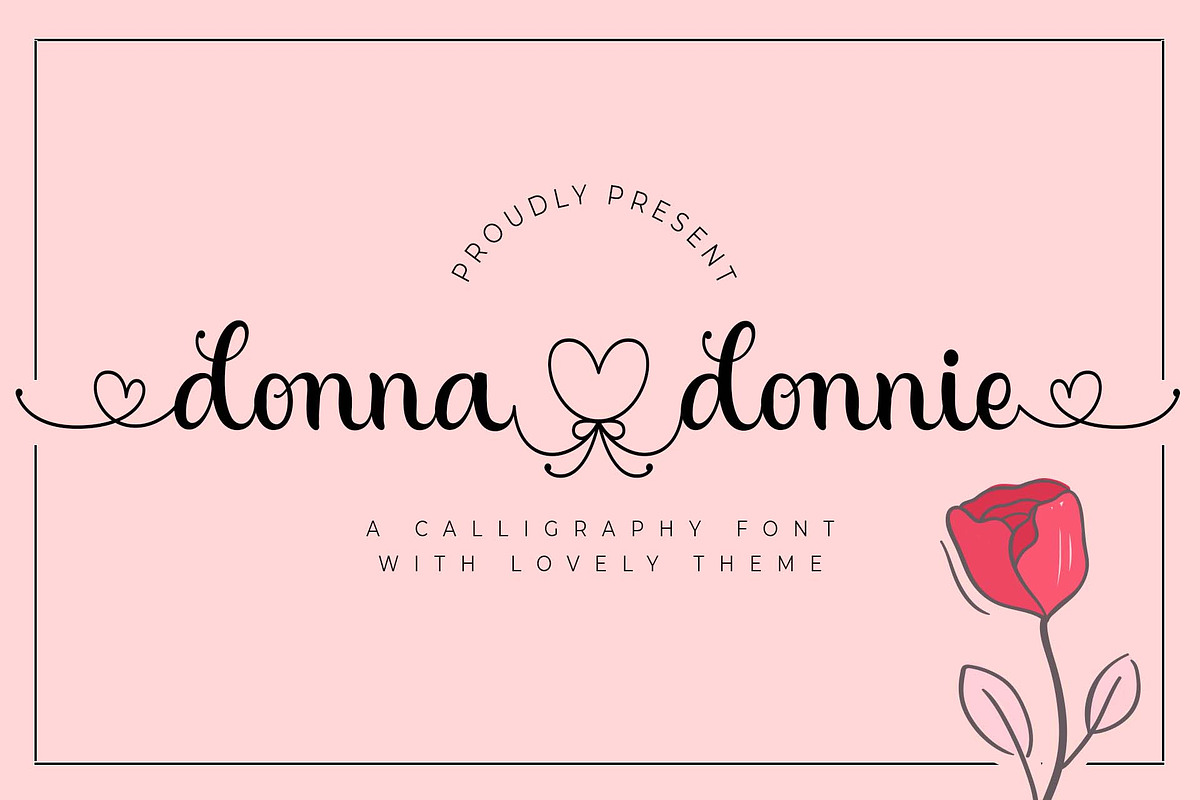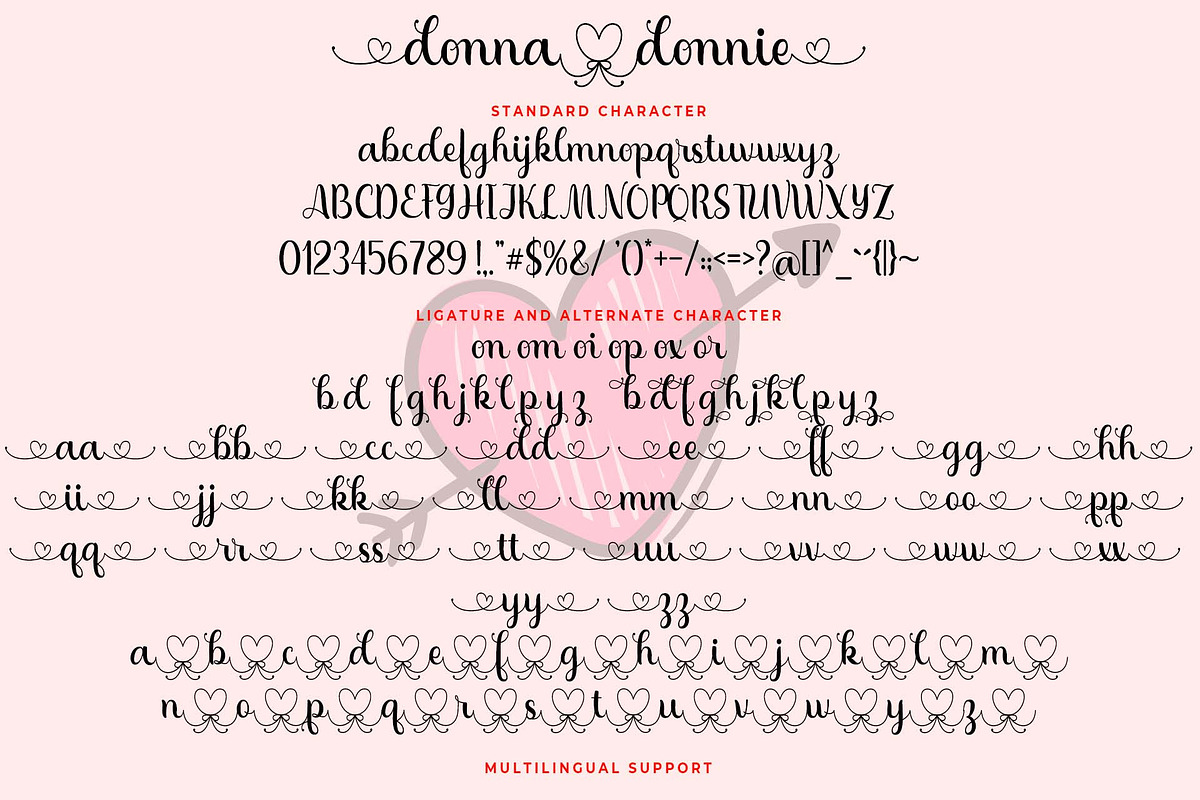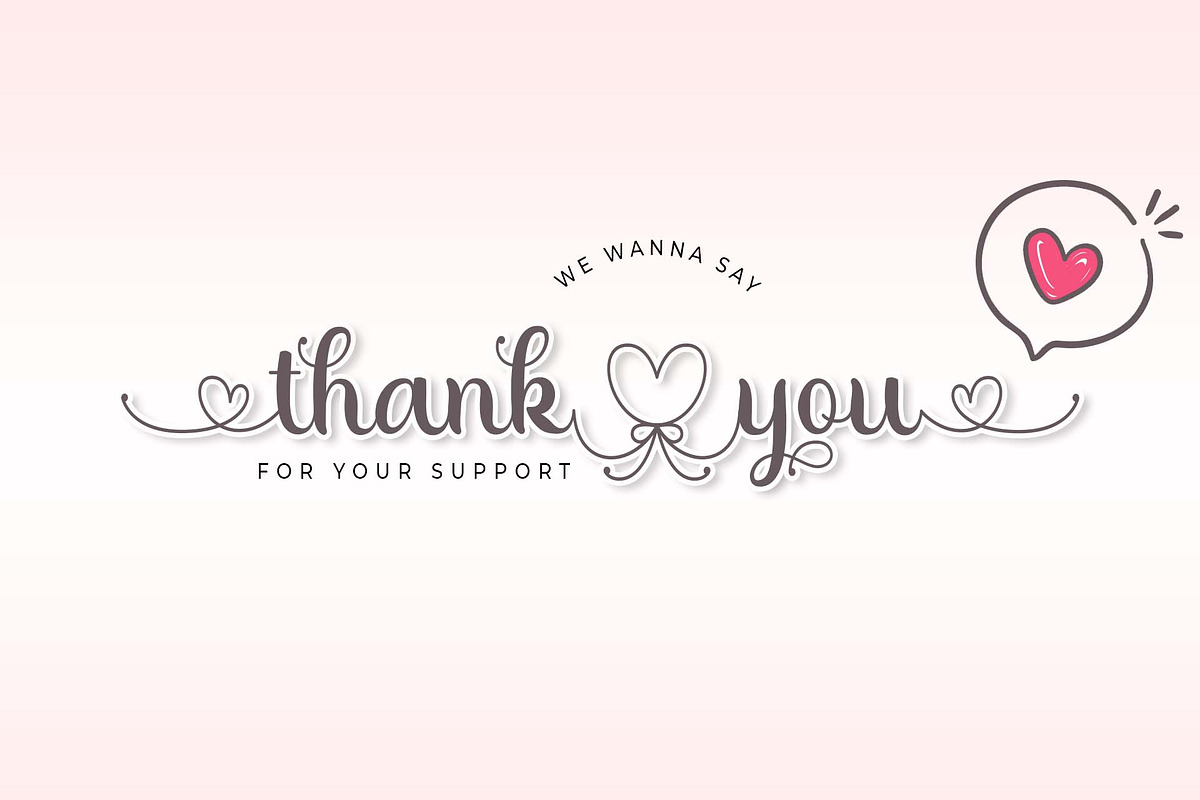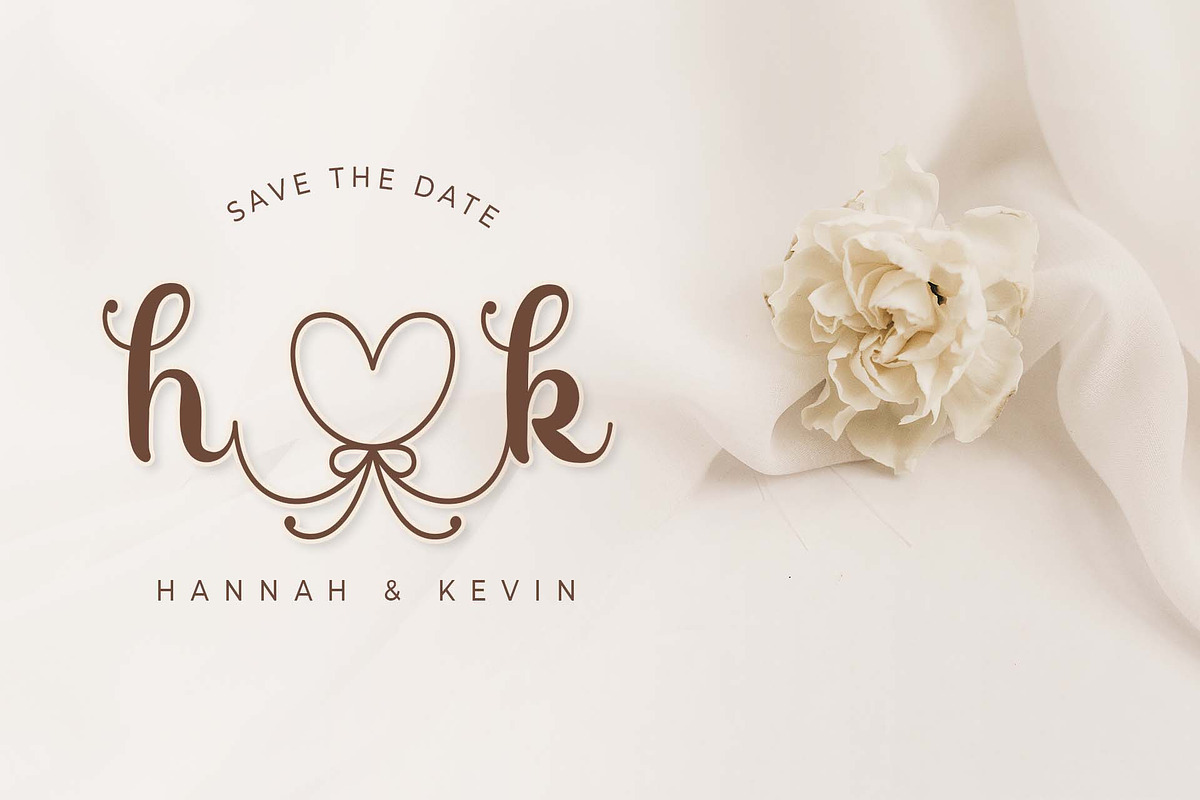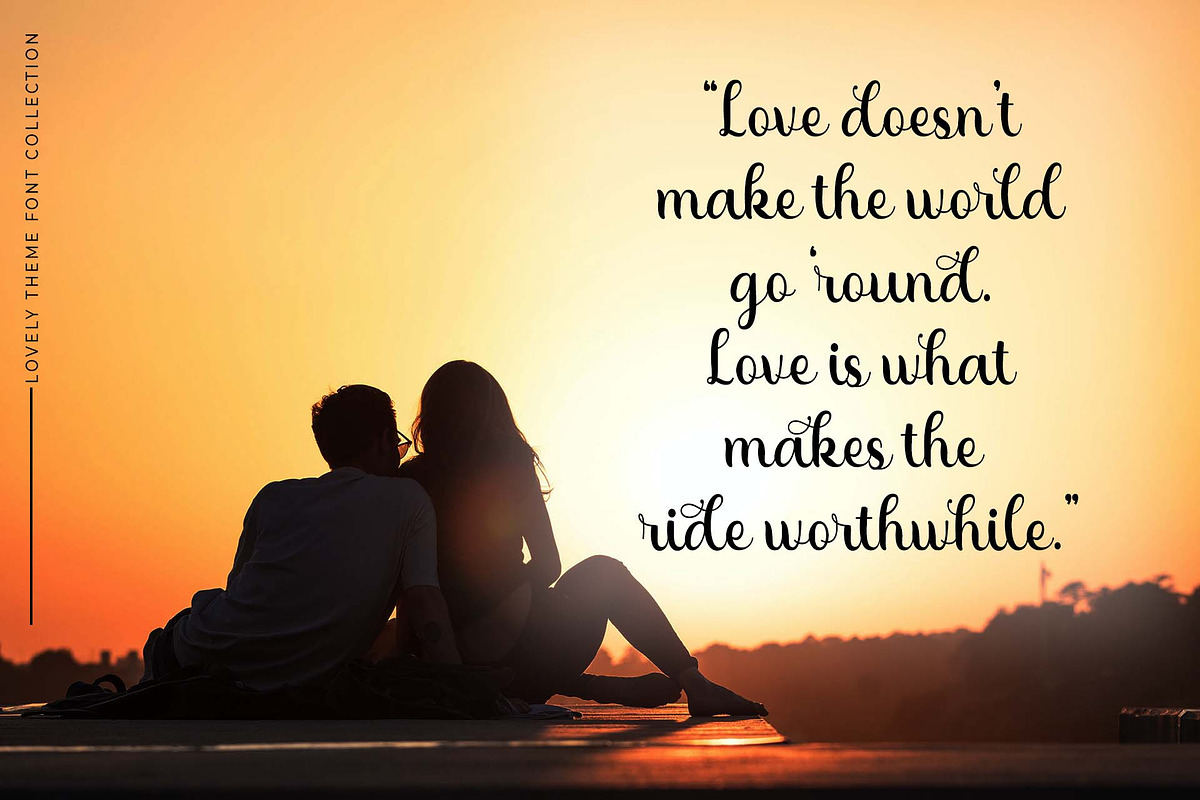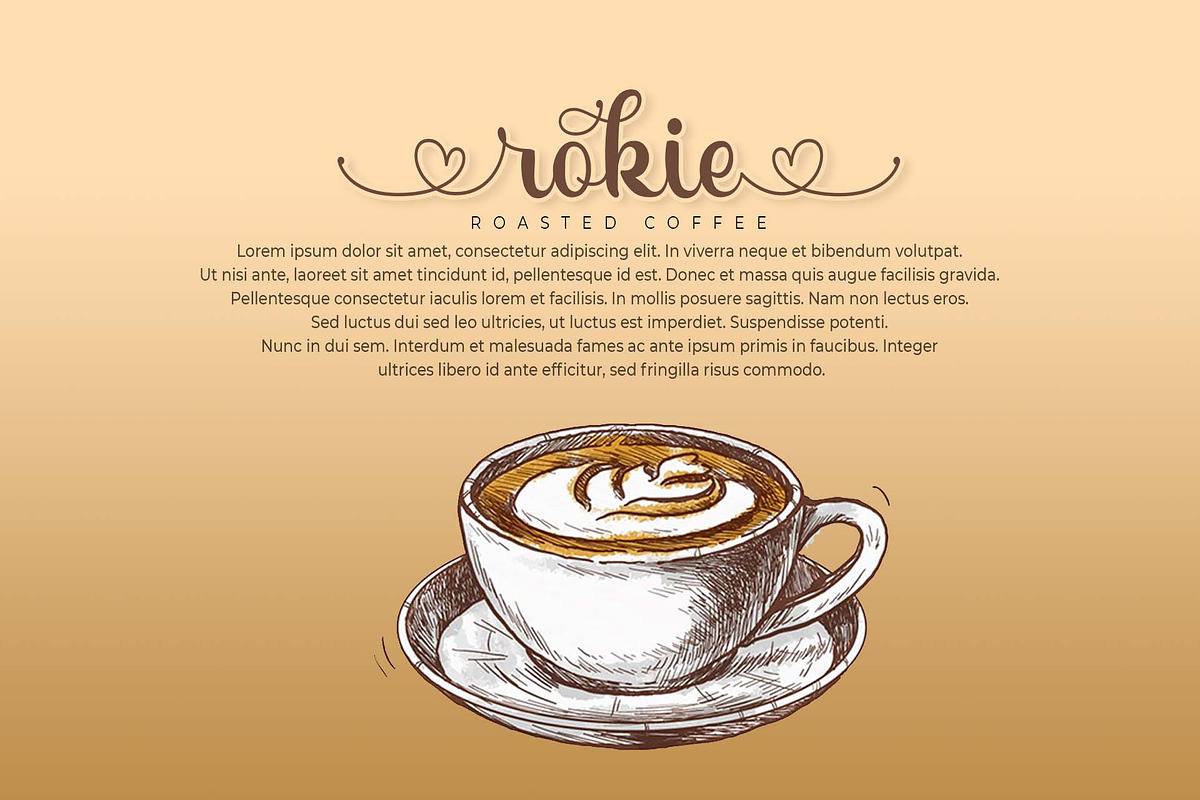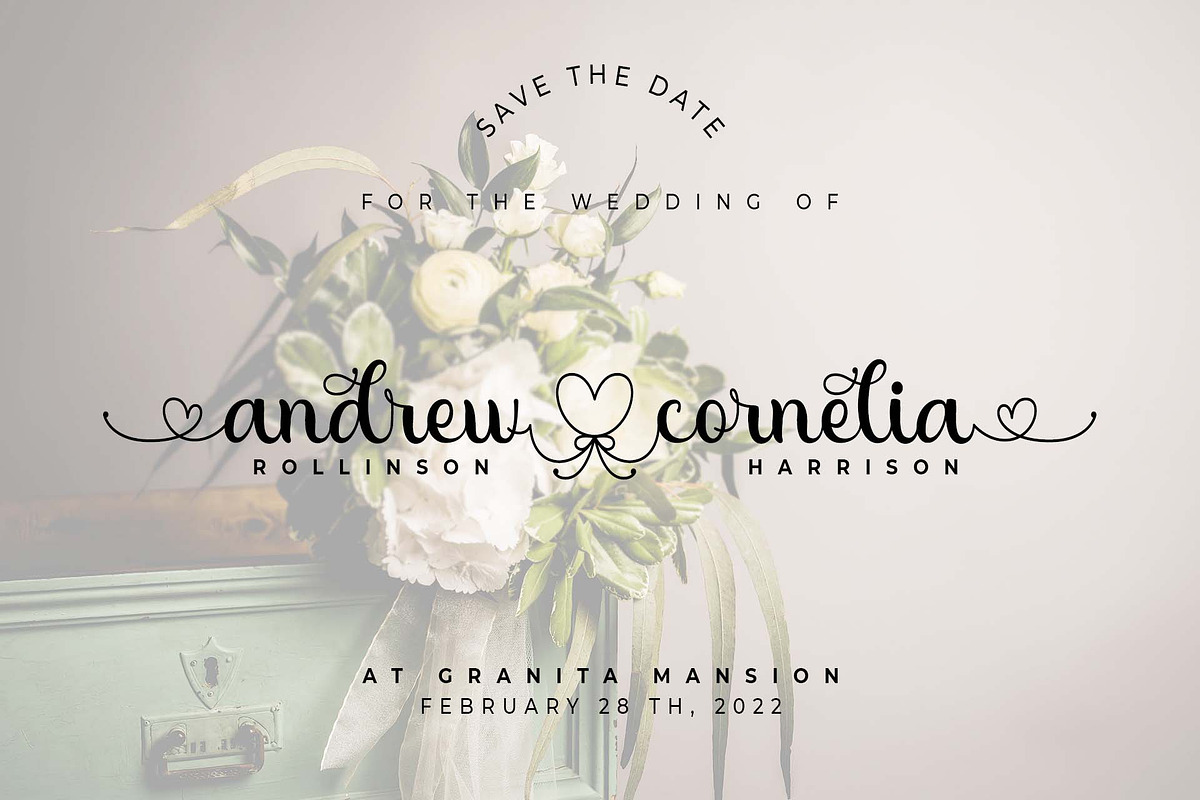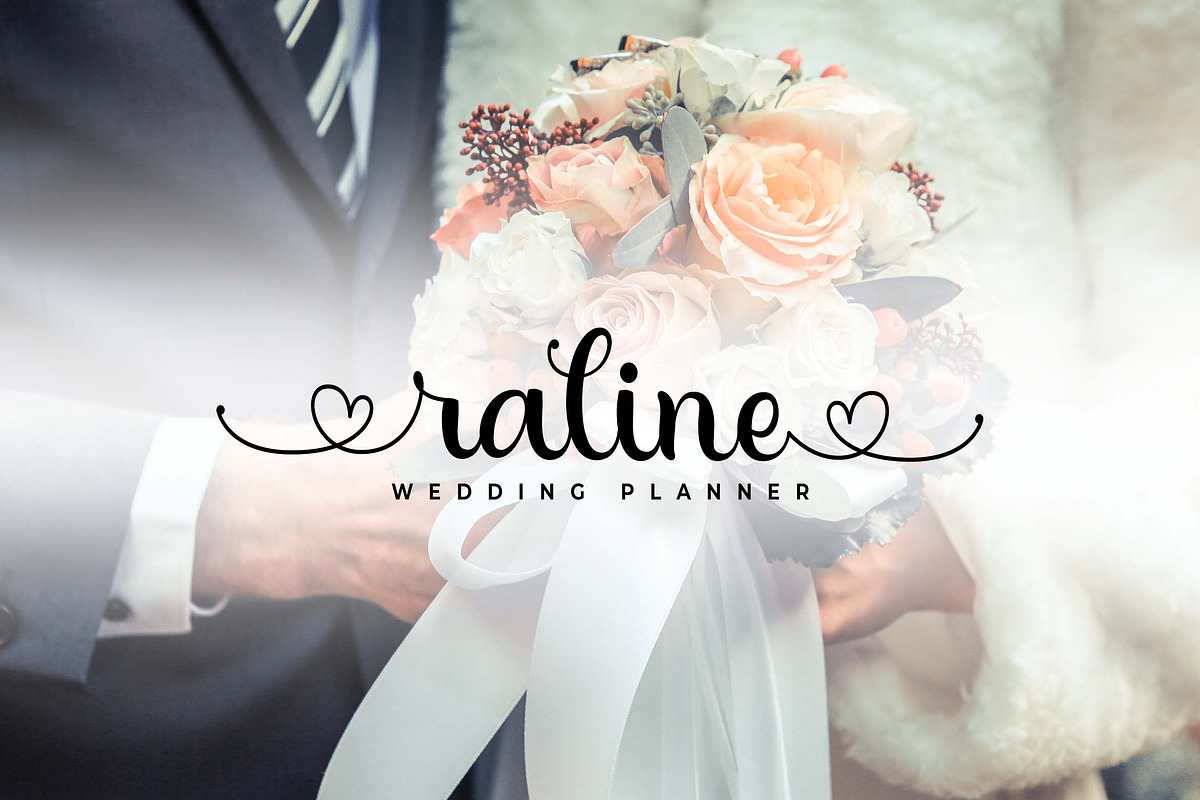
Donna Donnie - A Lovely Font
Introducing our latest product, Donna Donnie. Donna Donnie is chic, romantic, and cute. It's a beautiful combination of timeless elegance and authentic calligraphy. It’s so perfect for wedding invitations, beautiful stationary art, eye-catching social media posts, and cute greeting cards. This font is PUA encoded which means you can access all of the glyphs and swashes with ease!